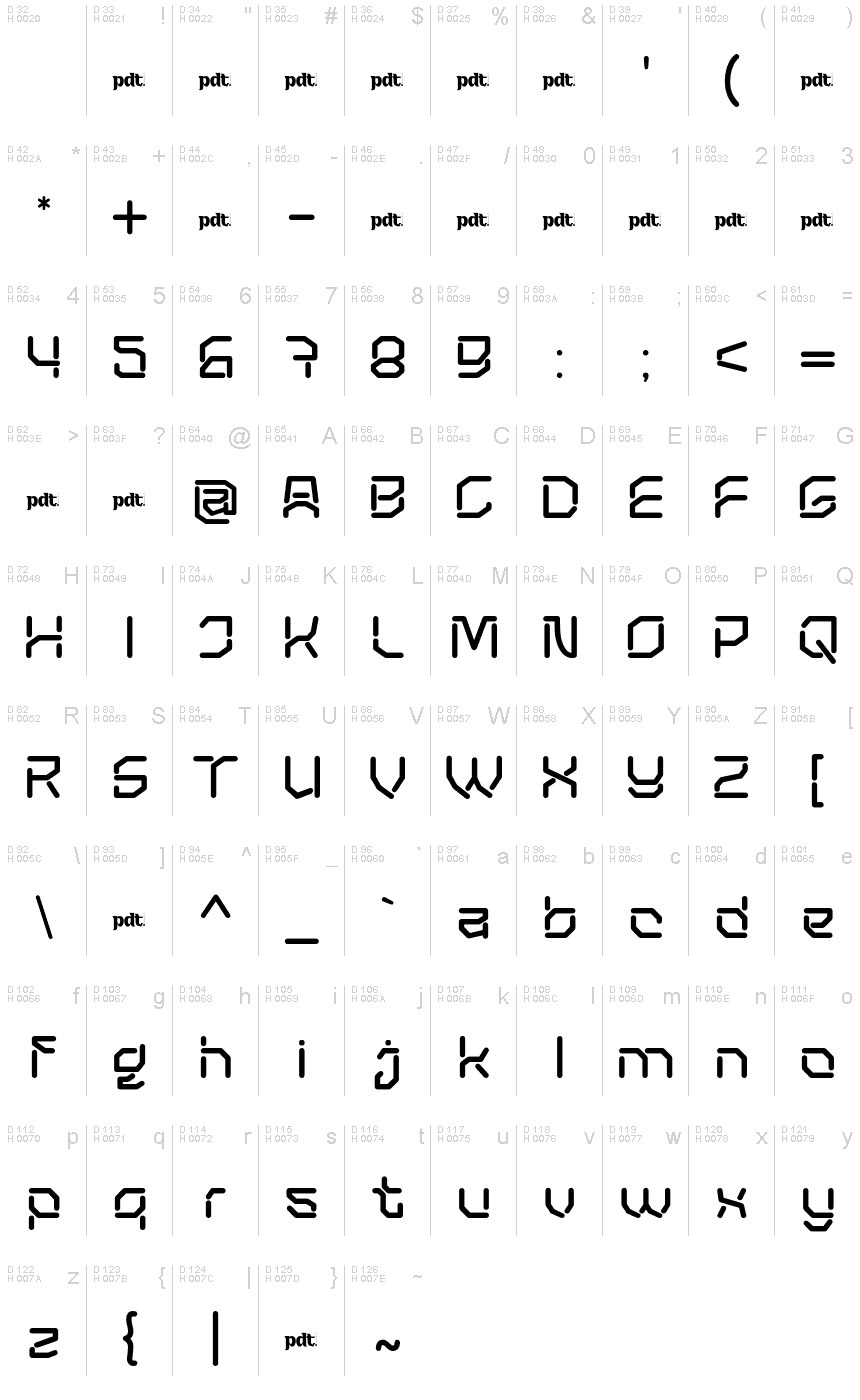
GOBAHTRIAL-Regular
Gobah, a mesmerizing creation by Rozi of Twinletter, is a remarkable display font that embodies the essence of futuristic design. With its semi-light weight and semi-expanded width, Gobah exudes an aura of modernity and innovation. Perfect for projects that demand a cutting-edge aesthetic, this font is ideal for sci-fi movie titles, tech-related websites, and futuristic packaging designs. Its sleek and stylish appearance will captivate viewers' attention while conveying a sense of forward-thinking creativity. Elevate your projects to new heights with Gobah's distinctively futuristic charm.